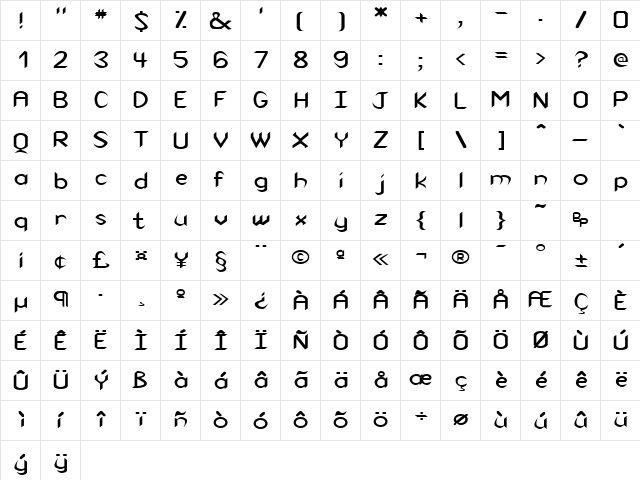
JayhawkExpand Normal
Design Context for JayhawkExpand Typeface
JayhawkExpand is a composed and adaptable typeface that performs quietly and consistently across a wide range of design contexts.